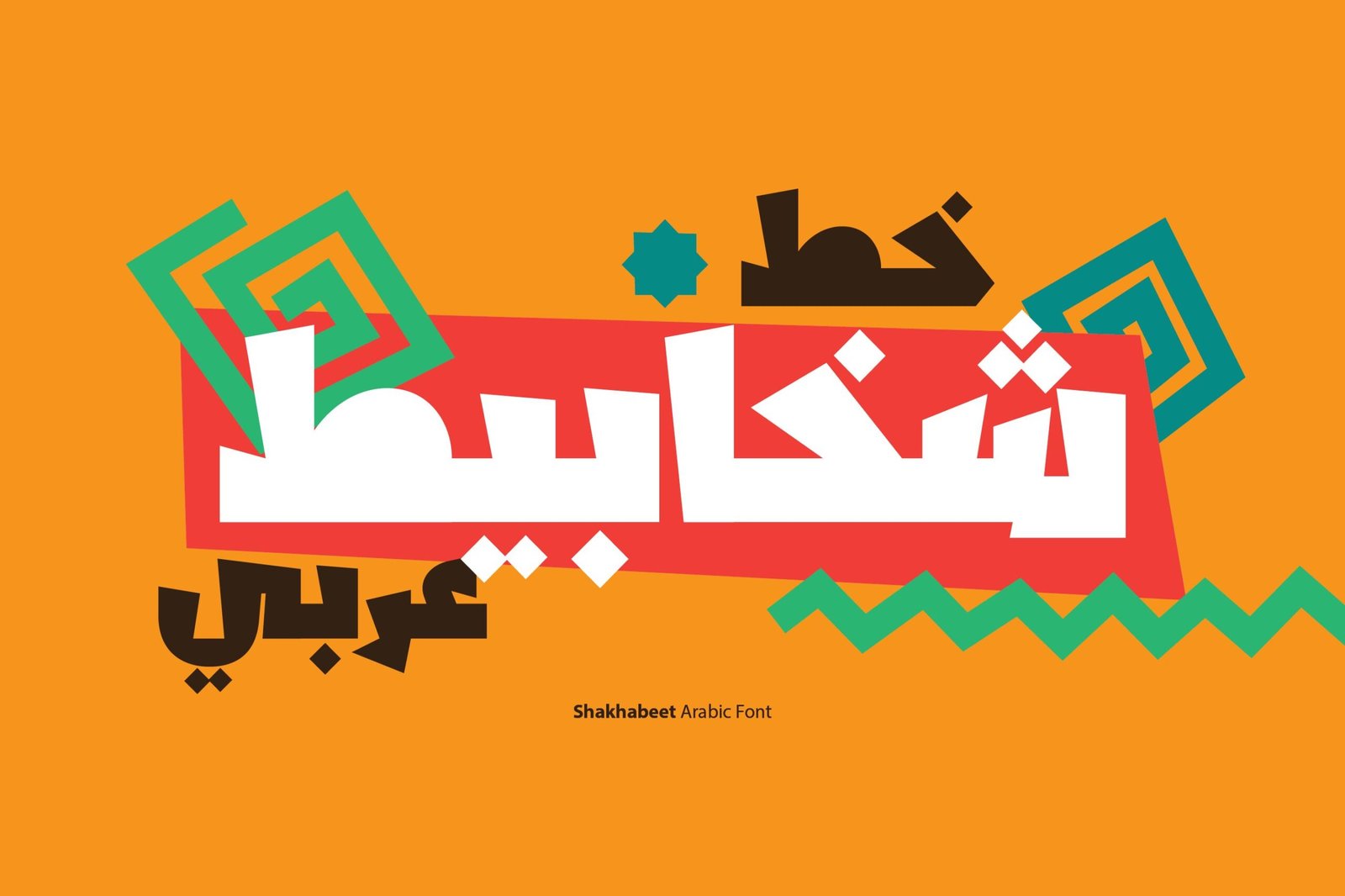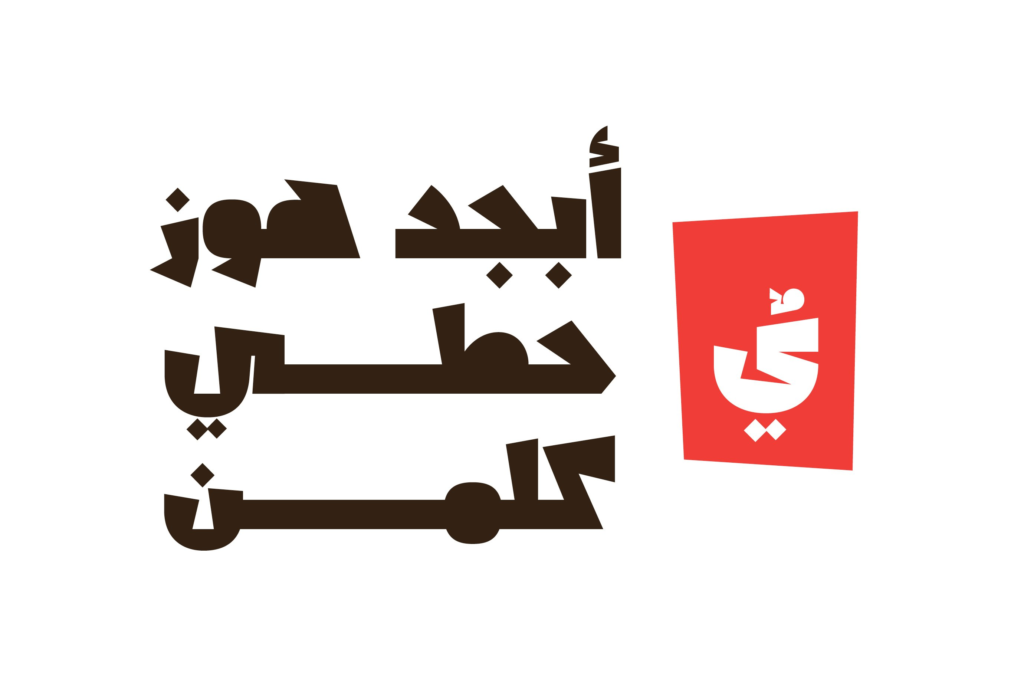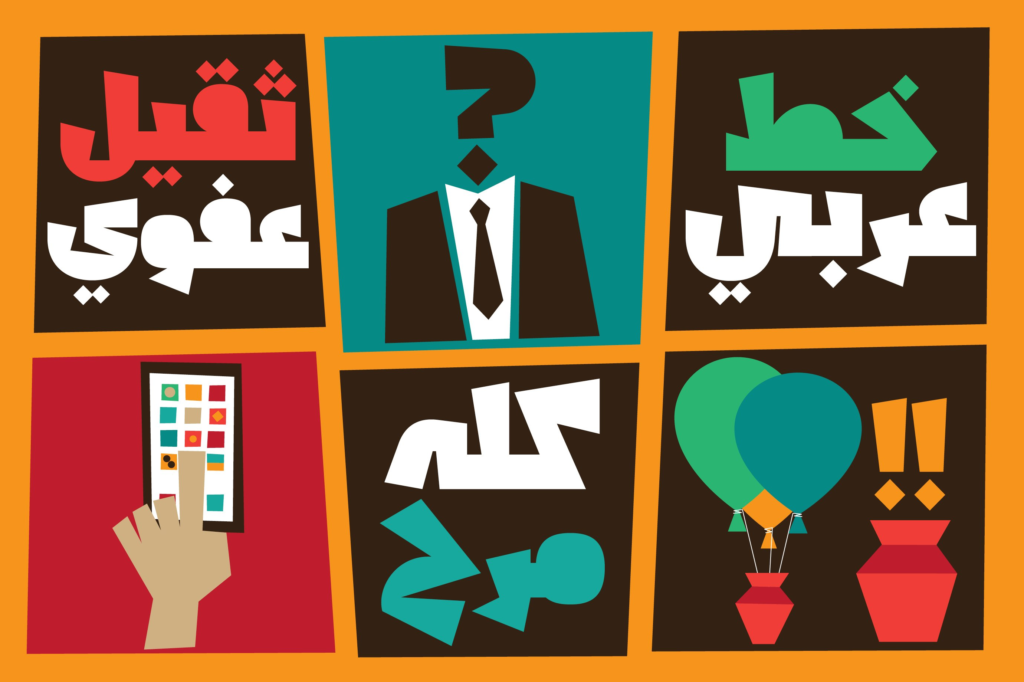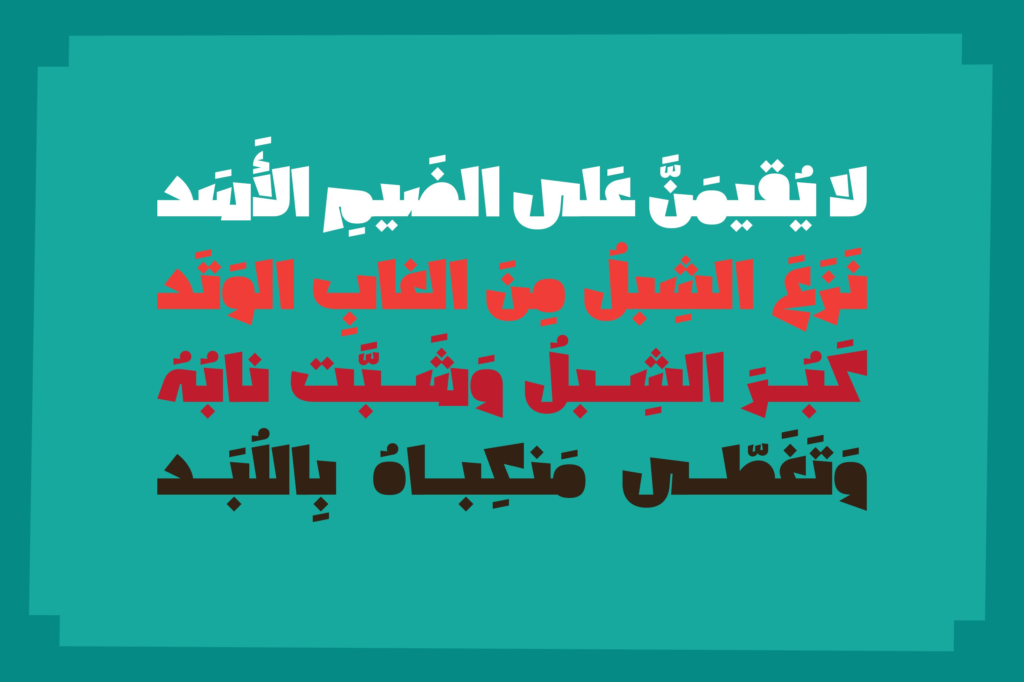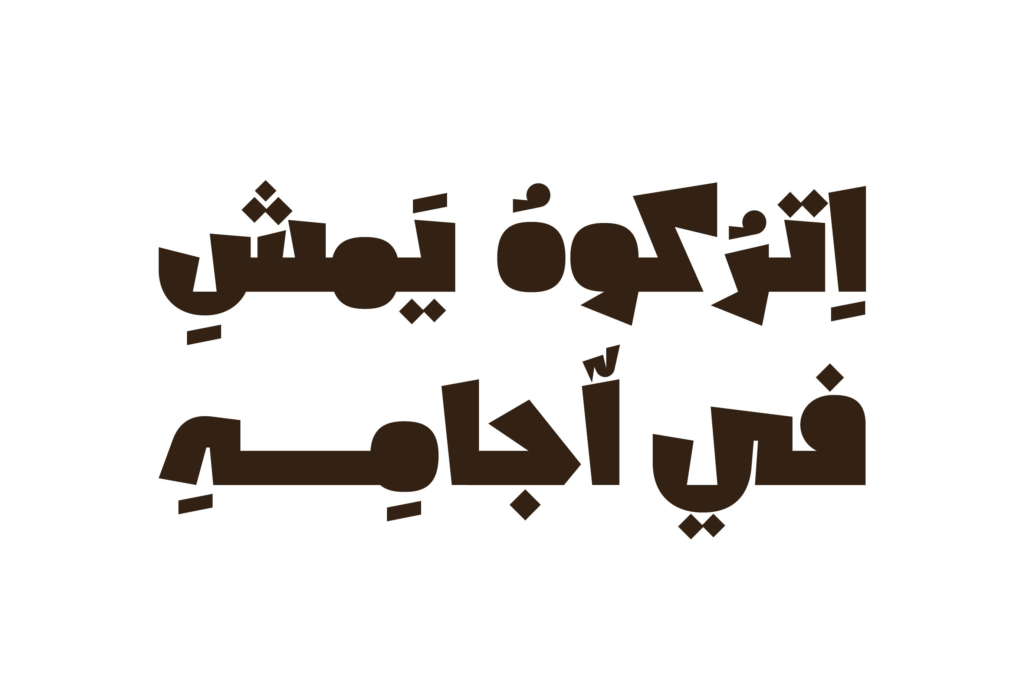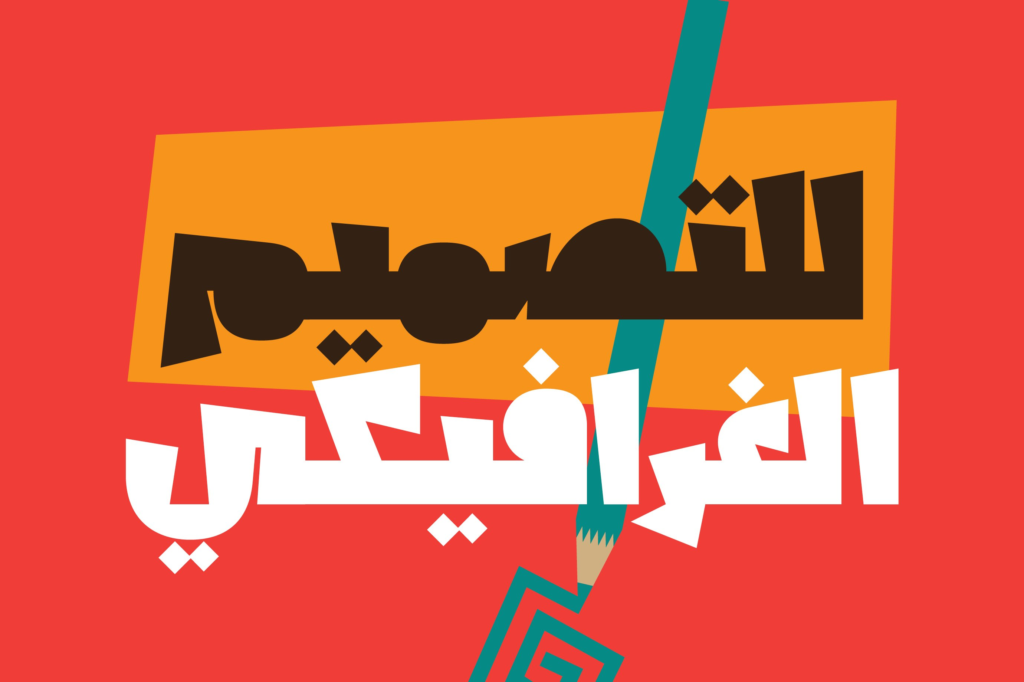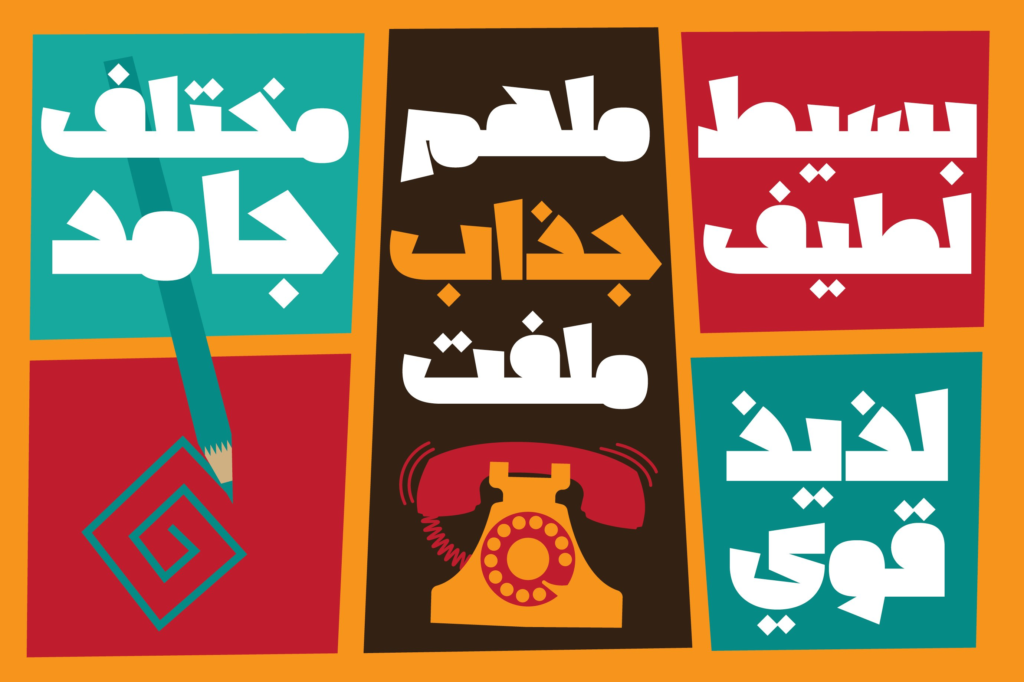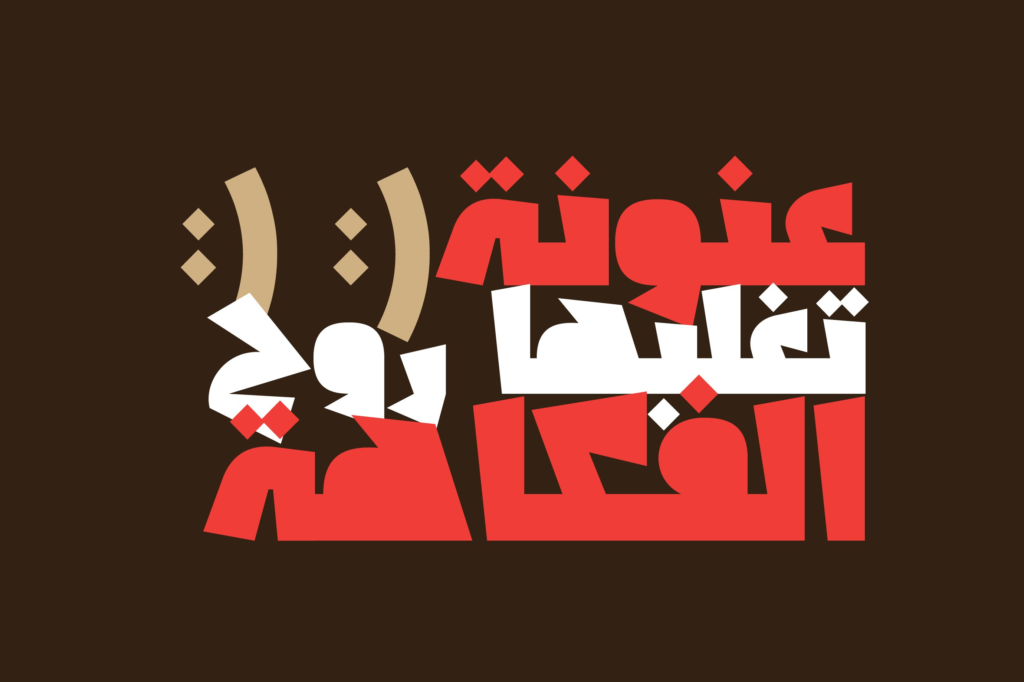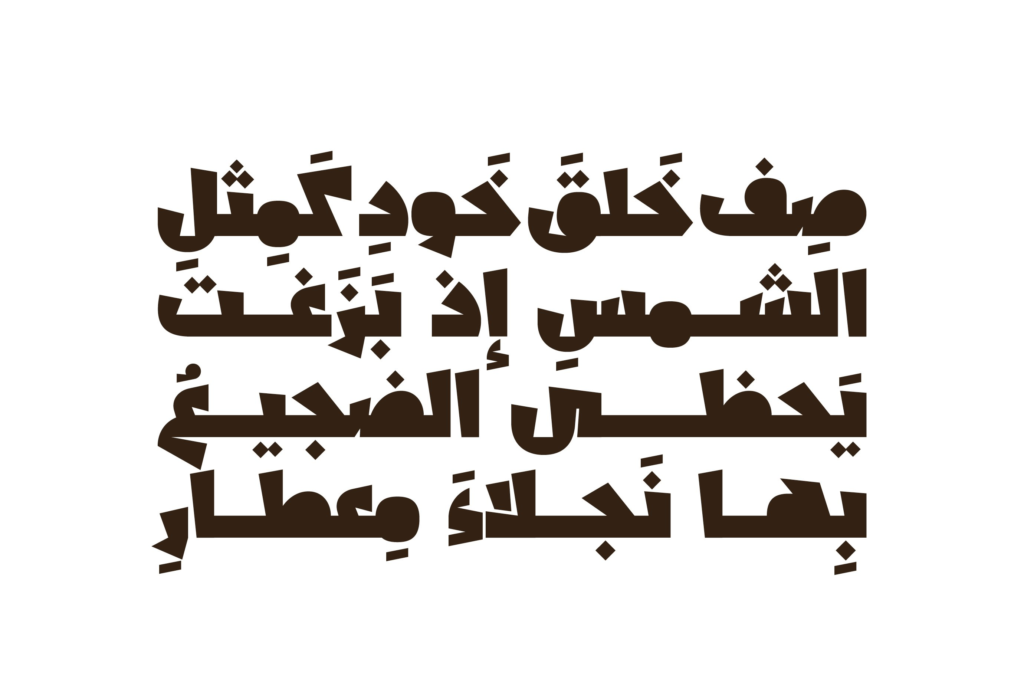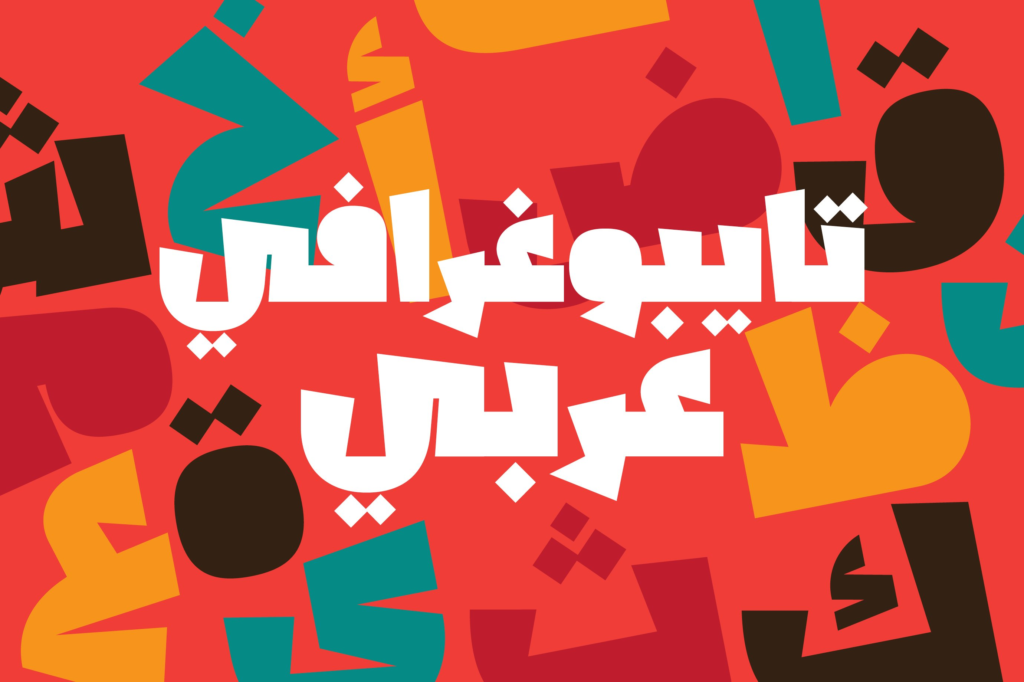
Shakhabeet Font
Shekhabit is a thoughtfully crafted typeface that brings distinctive character to Arabic and Persian typography. Perfect for designers working in typography, logo design, and web applications, this font offers a unique visual voice while maintaining the clarity needed for professional results.
Design Characteristics:
• Distinctive Arabic and Persian letterforms
• Unique character perfect for creative applications
• Balanced proportions for excellent readability
• Versatile design suitable for multiple uses
• Professional quality with artistic flair
Arabic Script:
• Complete Arabic character set
• Full support for diacritics and marks
• Proper character connections and positioning
• Unique styling across all letters
• Optimized for display applications
Persian (Farsi) Script:
• Complete Persian character set
• Full support for Persian-specific characters (گ، چ، پ، ژ)
• Correct representation of Persian numerals
• Proper character connections and positioning
• Harmonious with Arabic counterpart
• Typography: Artistic text layouts and compositions
• Logo Design: Memorable, distinctive wordmarks
• Web Design: Unique digital typography
• Print Materials: Brochures, flyers, posters
• Branding: Distinctive brand identities
• Social Media: Engaging, unique content
• Packaging: Standout product labels
• Headlines: Attention-grabbing titles
• Distinctive Design: Unique character for creative projects
• Coordinated Scripts: Harmonious Arabic and Persian
• Professional Quality: High-caliber font for commercial use
• Versatile Application: Perfect for typography, logos, and web
• Time-Saving: One font for both languages—no mixing required
Key Features of Shekhabit Font:
• Distinctive Arabic and Persian design
• Complete character sets for both scripts
• Unique, creative aesthetic
• Perfect for typography, logos, and web design
• Typographers and lettering artists
• Logo and brand identity designers
• Web and digital designers
• Creative professionals seeking unique typography
• Anyone needing distinctive Arabic/Persian fonts
Shakhabeet (which is the Arabic word for Scribbles) is an Arabic display font that features casual letterform design with a heavy weight. The font’s spontaneous style makes it a good companion to digital illustrations. Shakhabeet is suitable for creative titles, advertising, branding and publication design. It is also suitable for web design, print and mobile applications.